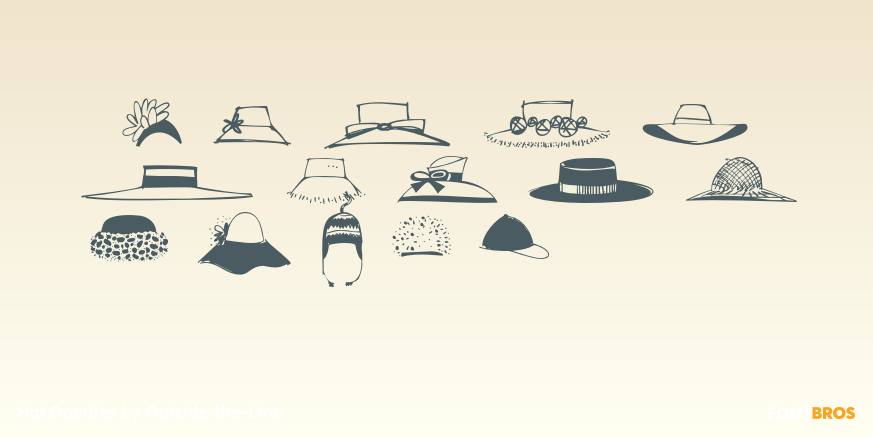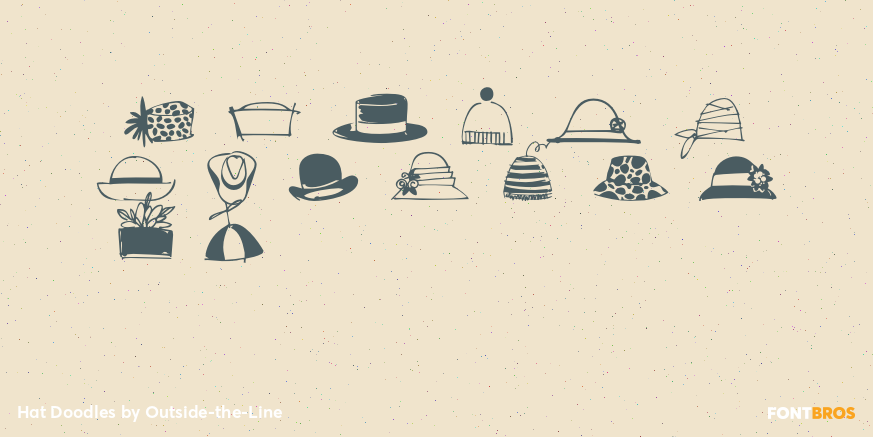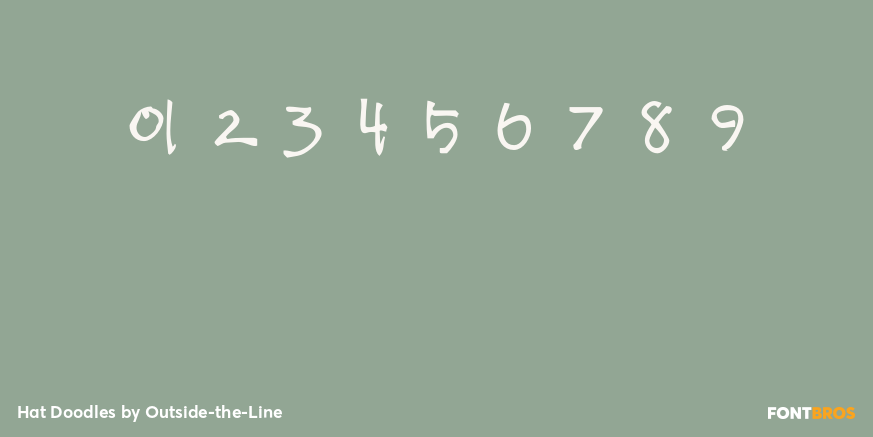
Hat Doodles
Font Family by Outside-the-Line
From silly to sophisticated, a collection of 30 women's hats. From a Summer Garden Party to the Kentucky Derby there is a hat for all occasions. Hat Doodles is another clip art doodle font in the Outside the Line picture font collection.